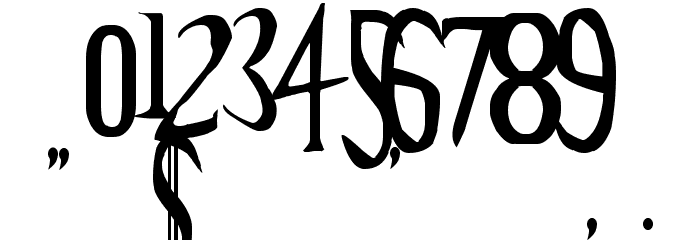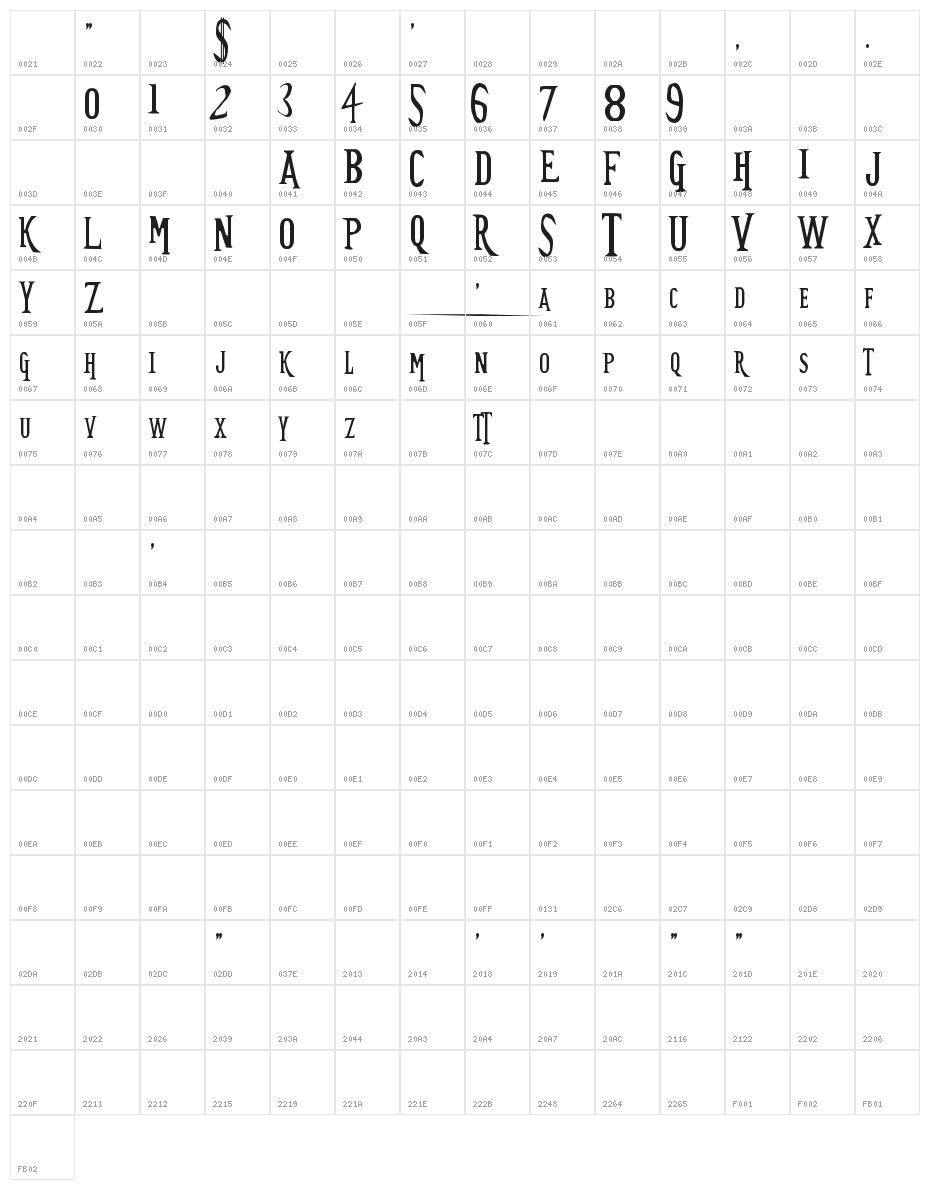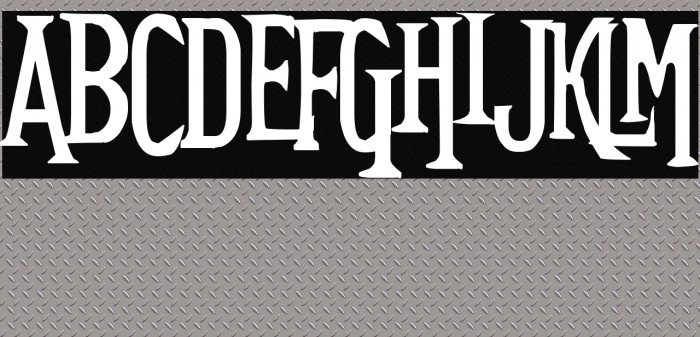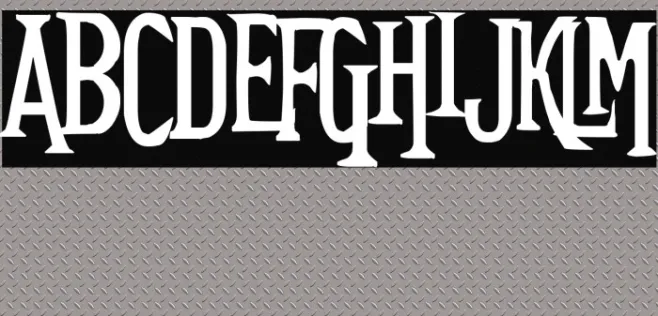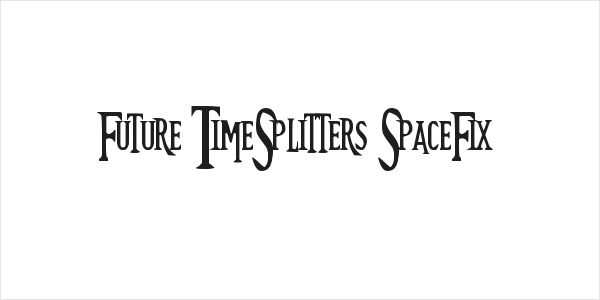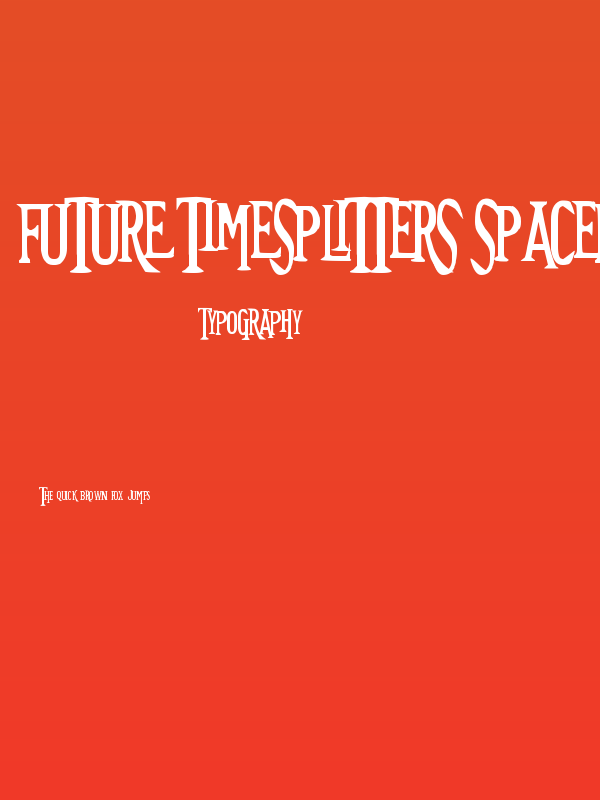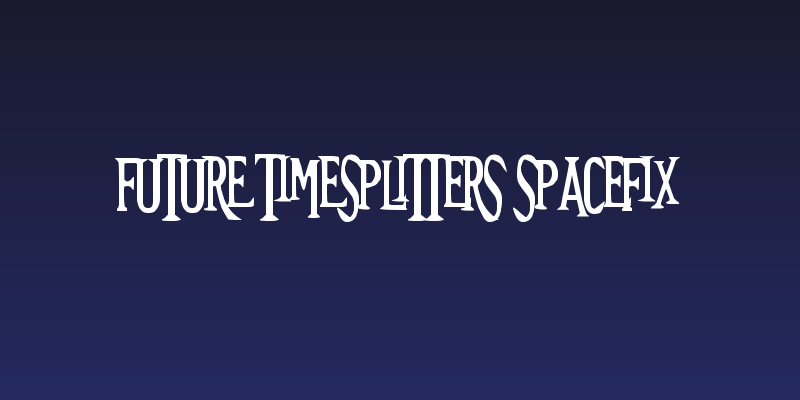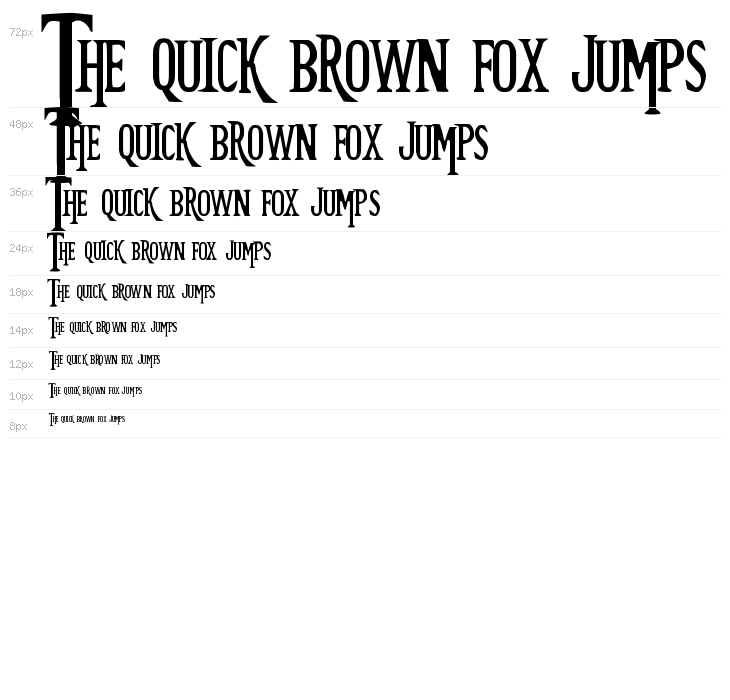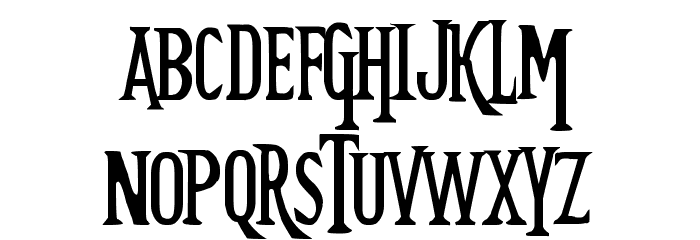
Future TimeSplitters SpaceFix Font
Future TimeSplitters SpaceFix Description
This font features a bold and dramatic style with high contrast between thick and thin strokes, giving it a dynamic and striking appearance. The uppercase letters are particularly elongated and angular, creating a sense of movement and energy. The lowercase letters maintain a similar style, with unique curves and sharp edges that add to the overall aesthetic. The numerals are equally distinctive, with a playful yet sophisticated design. Special characters are integrated seamlessly, maintaining the font's cohesive look. This font is ideal for projects that require a bold statement and a touch of modern flair.